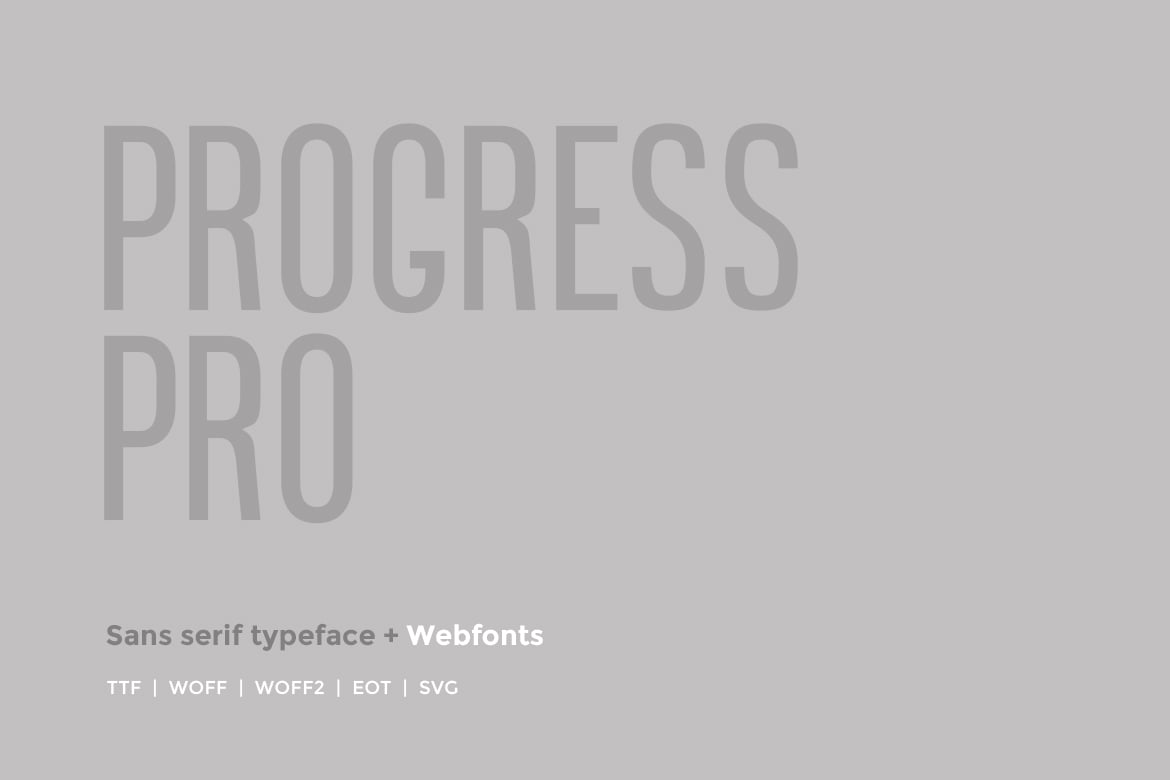
Progress pro - Modern Typeface + WebFont
Progress Pro Modern Typeface WebFont is perfect for innovative tech company websites, progressive business platforms, modern corporate presentations, forward-thinking startup branding, cutting-edge digital campaigns, professional web applications, contemporary online publications, and advancement-focused digital communications.
What makes Progress Pro Modern Typeface WebFont exciting is its forward-momentum character that embodies continuous advancement and professional growth through precisely engineered letterforms optimized for superior digital performance across all modern web platforms. The font features progressive geometric structures with contemporary details that communicate innovation, development, and the relentless pursuit of excellence that defines successful organizations. Its professional advancement aesthetic and web-optimized architecture make it perfect for brands that want to communicate continuous improvement, technological progress, and the forward-thinking leadership that drives industry advancement while creating memorable digital experiences that showcase professional competence and innovative vision.
Progress Pro Modern Typeface WebFont family includes comprehensive progressive weights ranging from Thin to Black, typically featuring Light, Regular, Medium, Bold, and Heavy variations optimized for web delivery with WOFF2, WOFF, and TTF formats. The family often includes responsive scaling features, web-specific character sets, and professional symbols that provide maximum flexibility for creating sophisticated digital brand experiences across all screen sizes and device types.
This professionally progressive typeface system has gained recognition among forward-thinking organizations and digital-first companies seeking premium web typography solutions that reflect advancement values and technological sophistication. Progress Pro Modern Typeface WebFont Free Download provides an excellent opportunity to advance with this progressive web font package before investment. The font's advanced web optimization includes compressed file sizes, enhanced rendering engines, and cross-browser compatibility that ensures consistent professional performance across all digital platforms and modern web environments. Whether you're designing for technology companies, professional consulting firms, or progressive business platforms, Progress Pro Modern Typeface WebFont delivers the professional advancement your project demands. Its versatile nature makes it suitable for various progressive applications including corporate websites, professional development platforms, innovation-focused publications, and advancement-oriented brands, ensuring your typography choices communicate continuous improvement and professional excellence while creating memorable digital brand experiences that inspire progress and celebrate the pursuit of excellence through its distinctively progressive and authentically professional visual character.